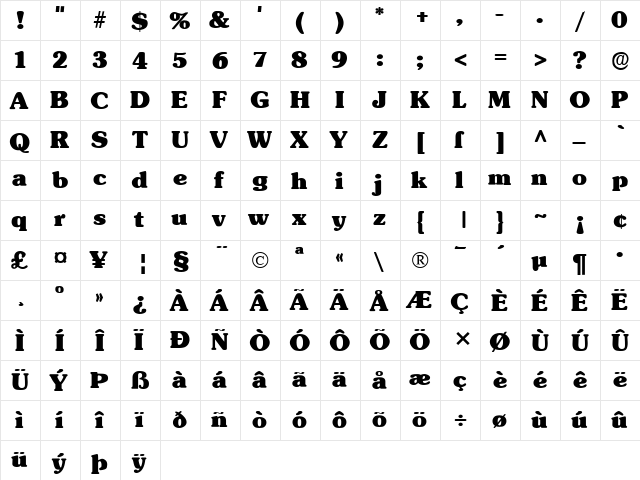
Subway Regular
Design Context for Subway Typeface
Subway is a composed and adaptable typeface that performs quietly and consistently across a wide range of design contexts.